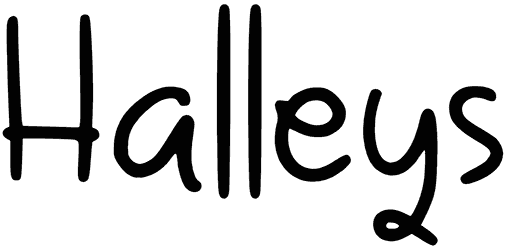
Halleys Font
It’s not hard to convey a casual and minimal vibe to your followers if you use a modern handwritten font like Halleys font. The realistic and friendly mood of this script font’s letters will make your name memorable. You have the freedom to use this unique letterform for your daily Facebook post, branding for your homemade product, and so on.